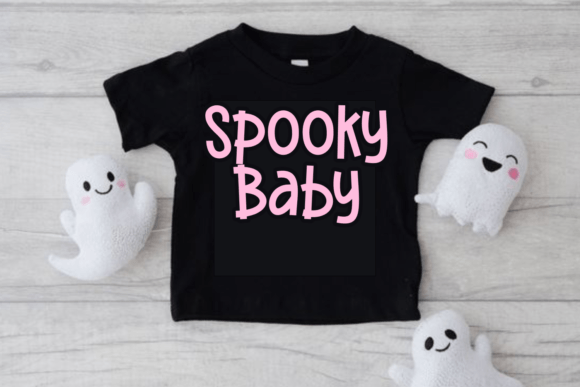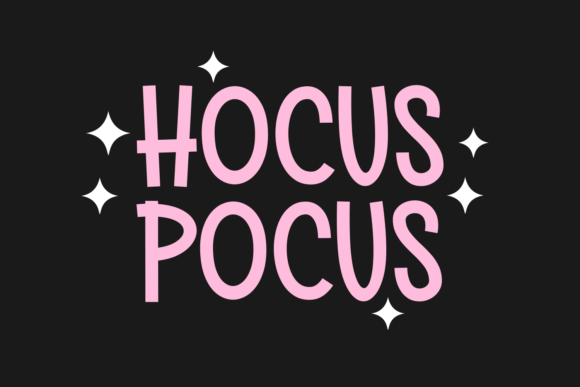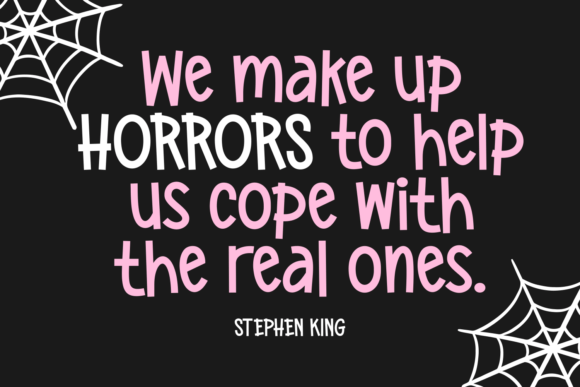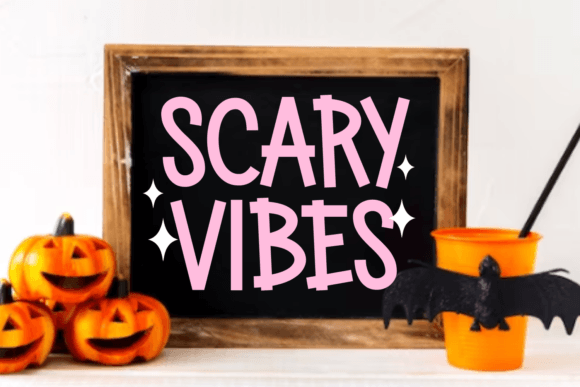
Introduction to Scary Thing Font
As a designer, you know the thrill of getting creative with a new project, especially when it’s a Halloween-themed design. You’re browsing through your design resources, searching for the perfect font to add that extra oomph to your design. And then, you stumble upon it – Scary Thing Font. This delightfully spooky typeface is sure to cast a spell of excitement over your text.
With its eerie, yet whimsical lettering, Scary Thing Font is a valuable addition to any designer’s toolkit. Whether you’re creating party invitations, haunted house flyers, or chilling social media posts, this font is perfect for adding a touch of creepy fun to your design. And the best part? You can download it with a transparent background, making it easy to use in high-quality designs.
In this article, we’ll dive deeper into the world of Scary Thing Font and explore its features, uses, and benefits for designers. So, let’s get started and discover why Scary Thing Font is a must-have for any creative project.
Key Features of Scary Thing Font
- Unique, spooky character set with various creepy symbols and icons
- Perfect for designers looking for a distinctive, high-quality font for their design projects
Honest Review: Scary Thing Font
As a designer, I’m always on the lookout for unique design resources to add a touch of creativity to my projects. The Scary Thing Font is one such resource that caught my attention. ✨
The font’s eclectic design and playful vibe make it perfect for adding a dash of whimsy to your creative project. It’s available for free download, which is a major plus. The transparent background option allows for seamless integration with other design elements, making it a valuable addition to any design resource collection.
Here are some of the key features that I appreciate about the Scary Thing Font:
- High-quality design that’s sure to stand out
- Perfect for adding a touch of whimsy to creative projects
However, I do have a few reservations about the font. ⚠️ The limited character set may be a drawback for some designers, and the font’s quirky design may not be to everyone’s taste.
Overall, the Scary Thing Font is a fun and creative addition to any design resource collection. While it may have its limitations, it’s a valuable resource for designers looking to add a touch of personality to their projects.
Scary Thing Font
The Scary Thing Font is a versatile design resource ideal for creative projects that require a spooky or eerie atmosphere. This font features a transparent background, making it easy to overlay on top of images or other design elements.
To get the most out of the Scary Thing Font, experiment with different font sizes, colors, and combinations to achieve the desired effect.
The Scary Thing Font is commonly used in:
- Spooky-themed designs
- Horror movie posters
- Halloween invitations
- Creepy social media graphics
The Scary Thing Font is a high-quality design resource that can add a touch of eeriness to your creative projects. With its transparent background and versatility, it’s an excellent choice for designers looking for a unique and creative font.